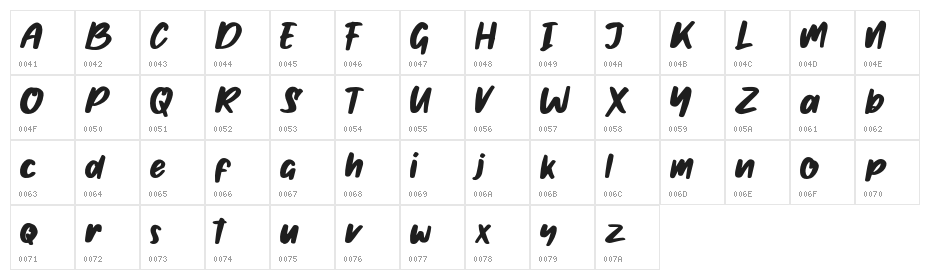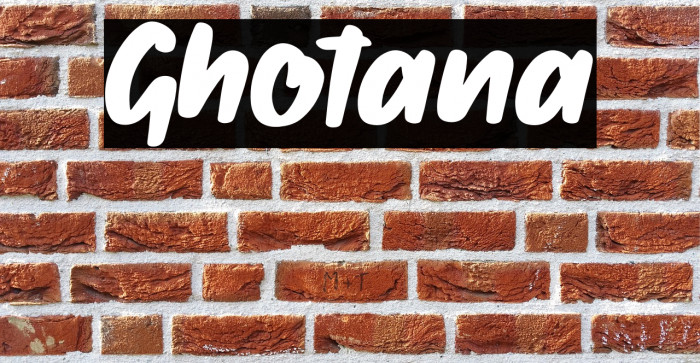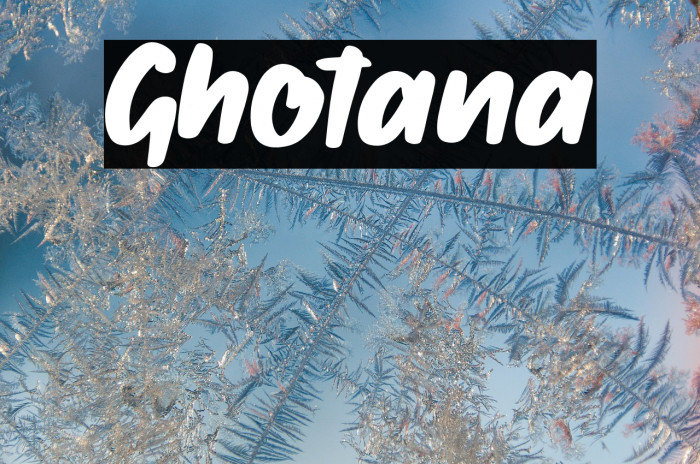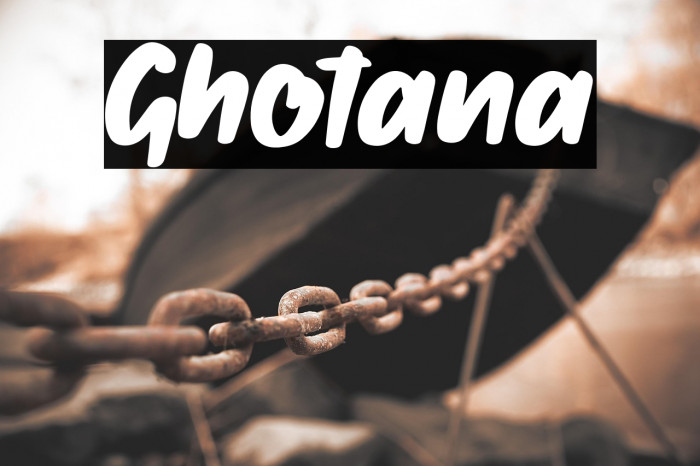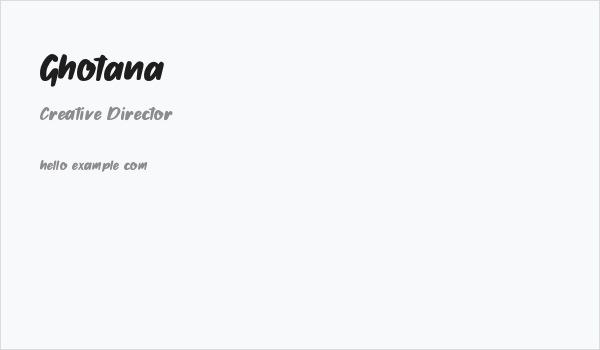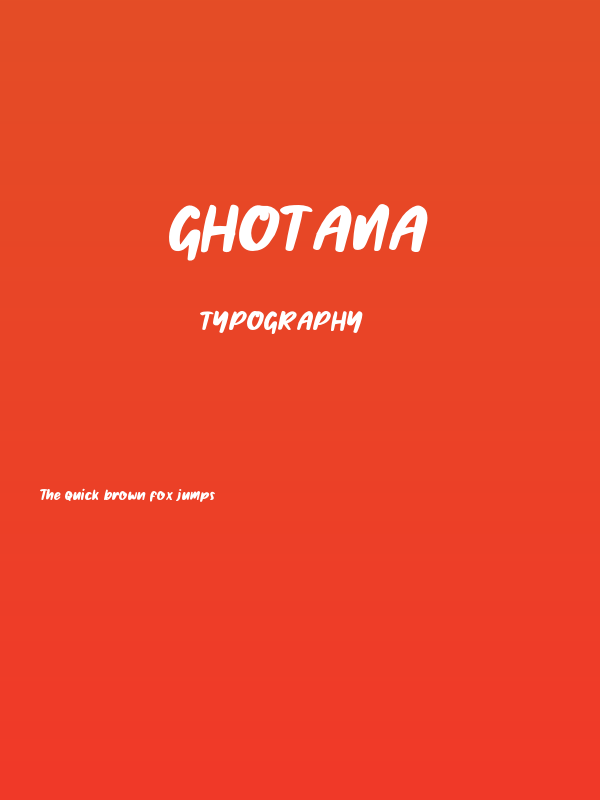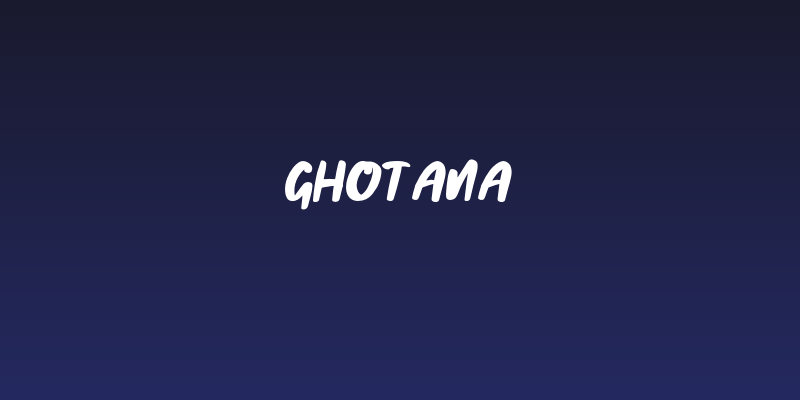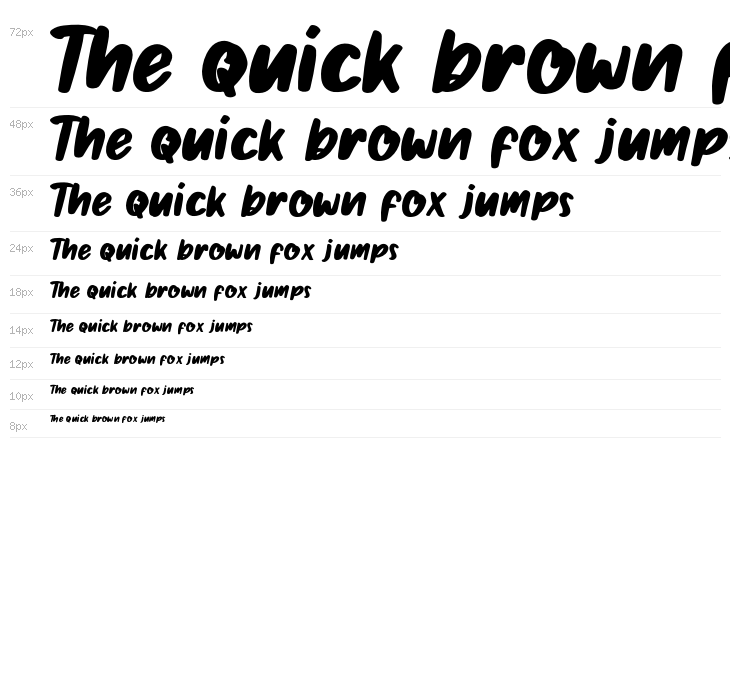
Ghotana Font
Ghotana Description
This font features a bold, energetic style with a handwritten appearance. The characters are slightly slanted, giving a dynamic and casual feel. The strokes are thick and consistent, providing a strong presence on the page. The letters are closely spaced, enhancing the compact and cohesive look. This font is ideal for projects that require a personal touch or a lively, informal vibe. The uppercase and lowercase letters maintain a consistent style, ensuring readability and visual harmony. Special characters are included, matching the playful and robust aesthetic.